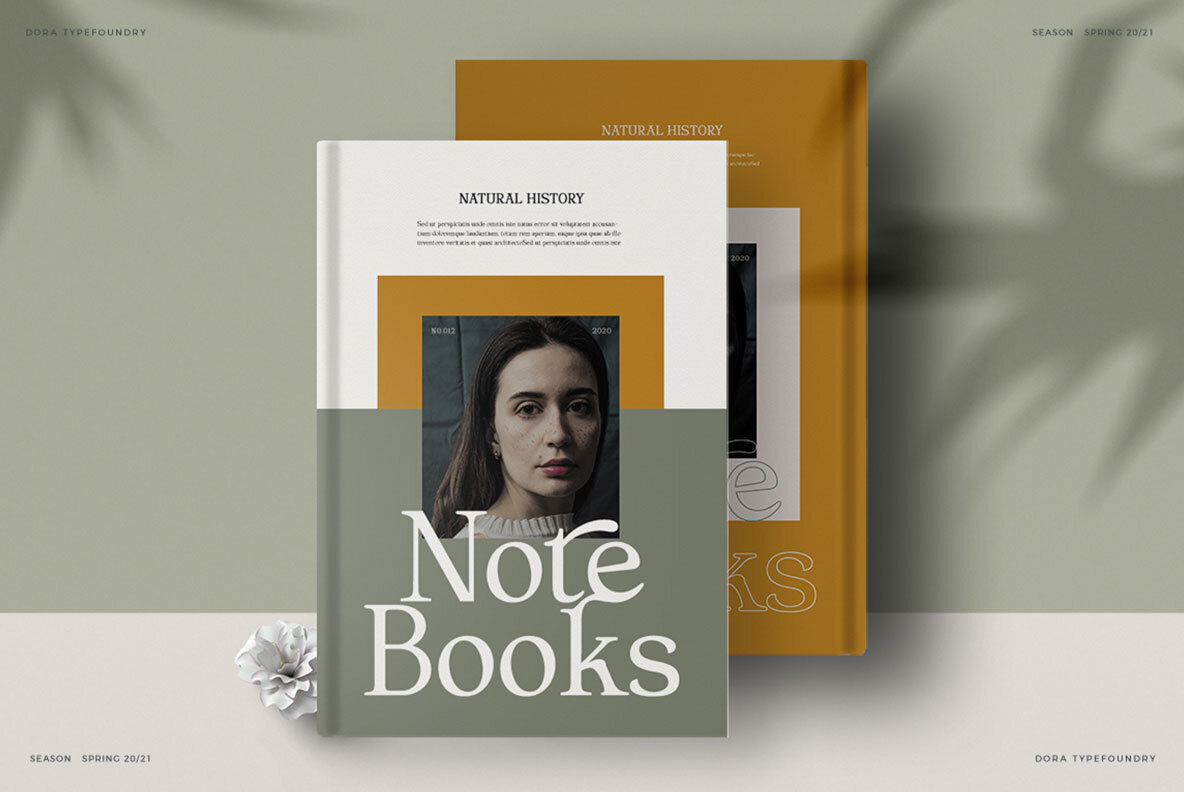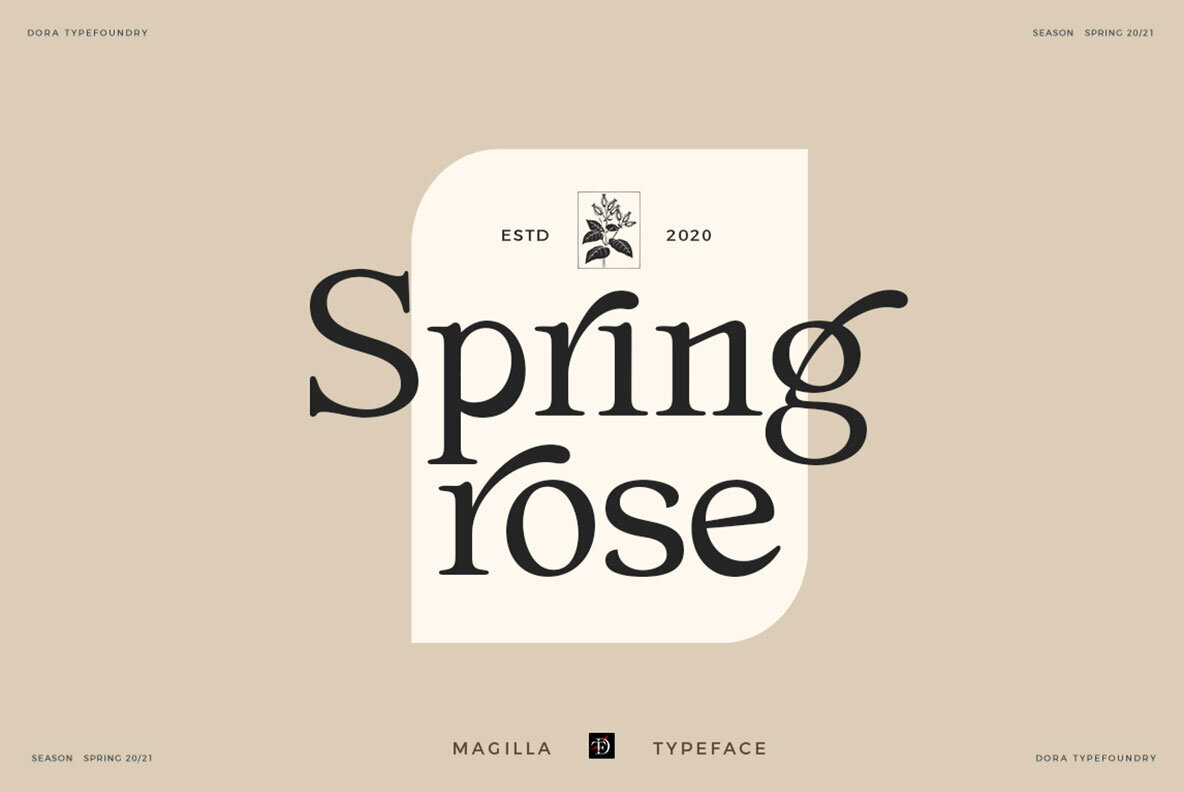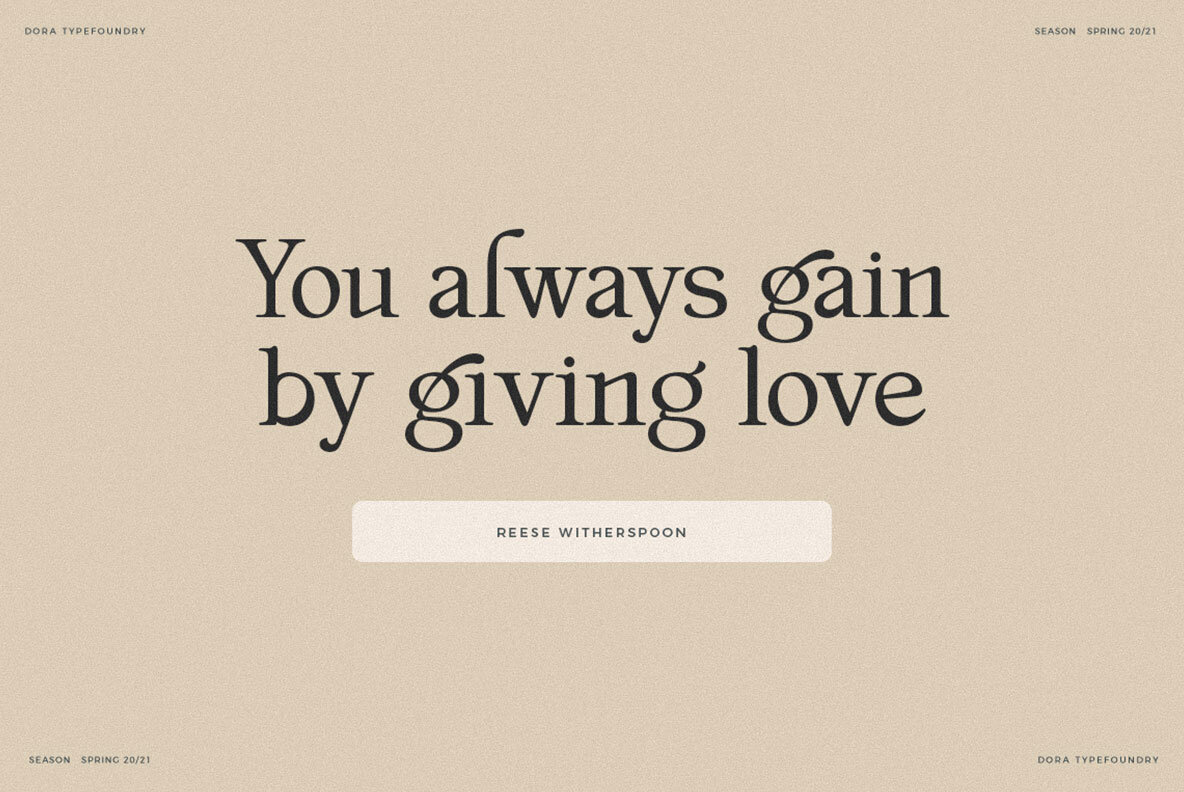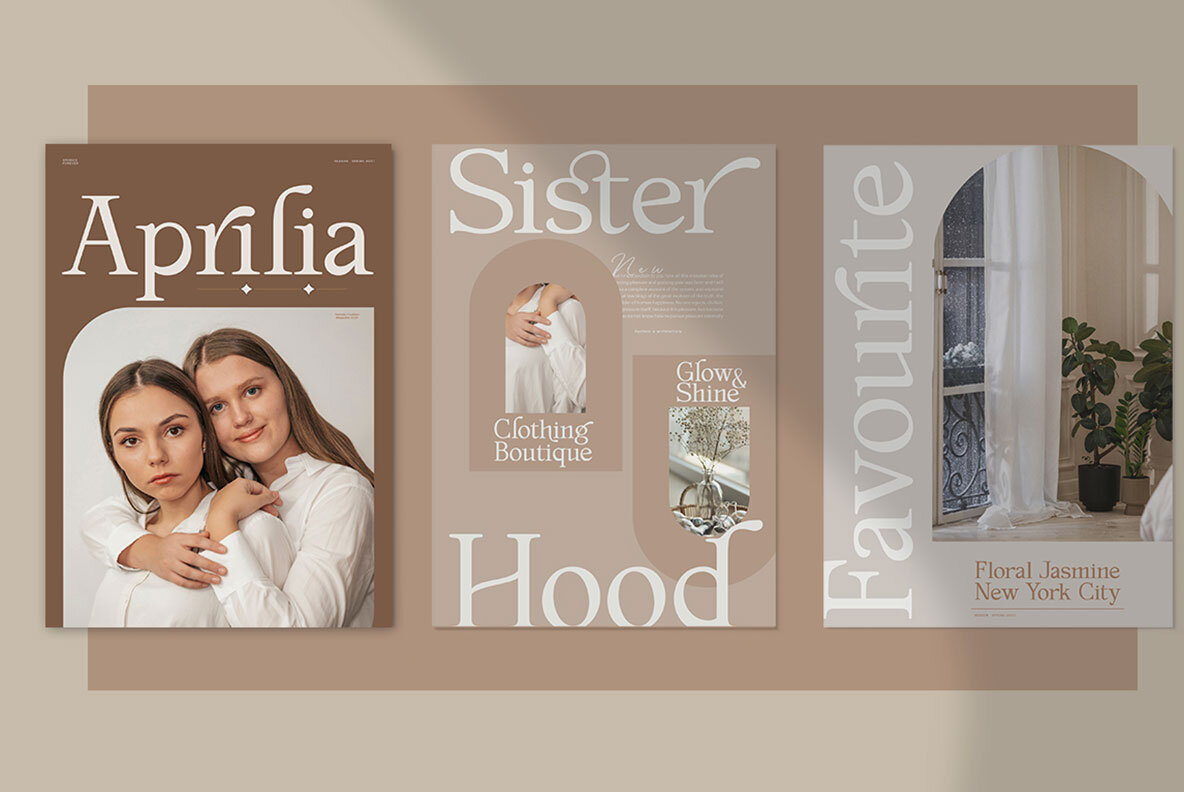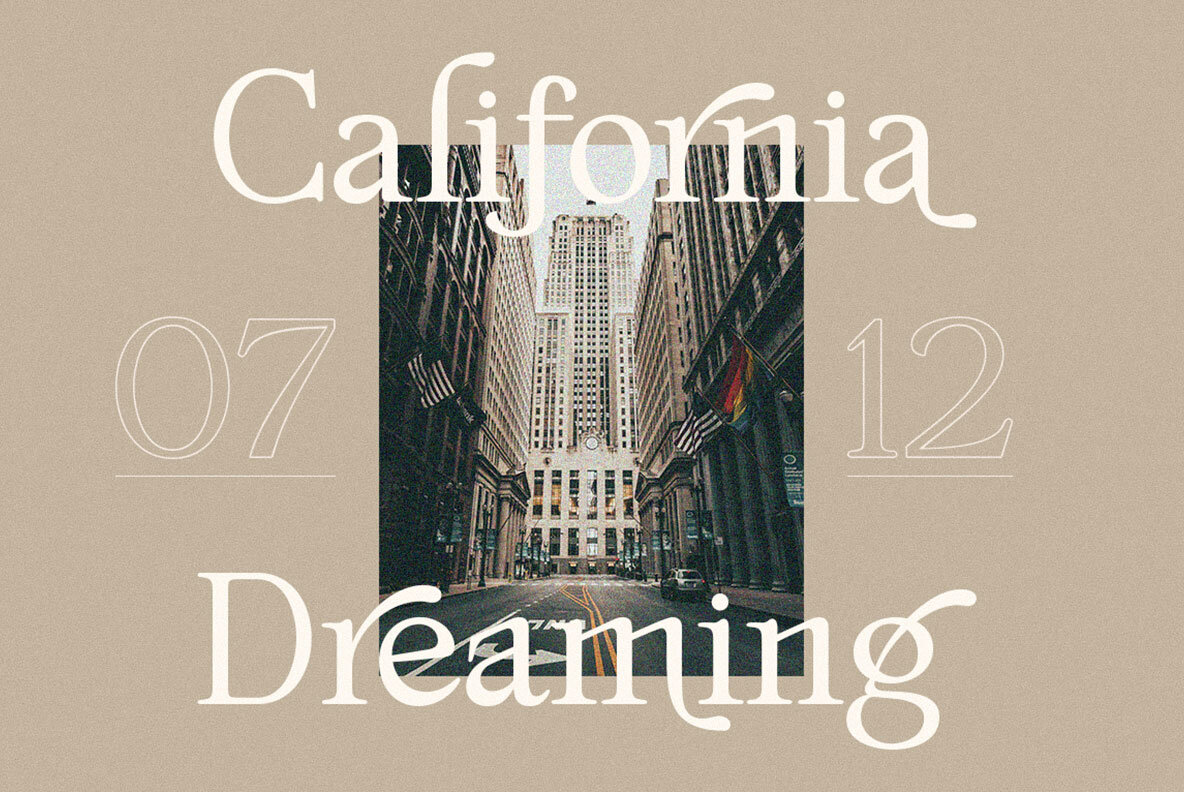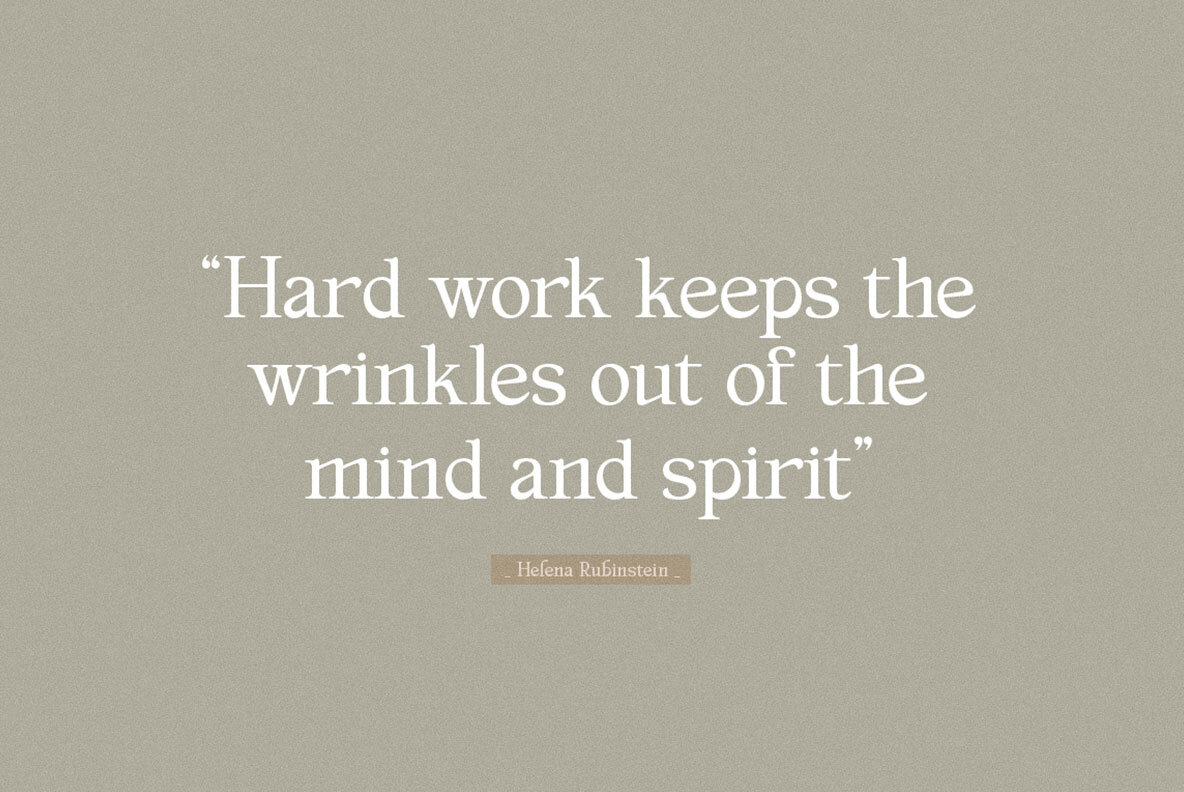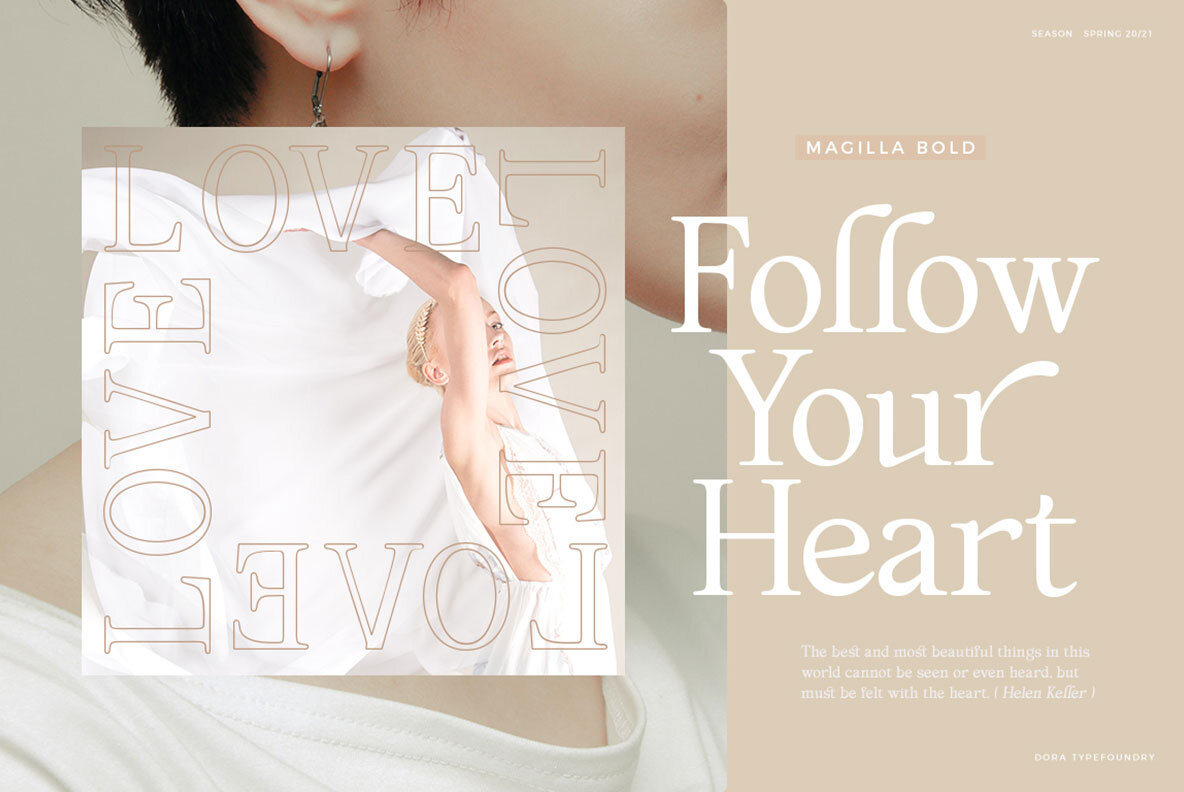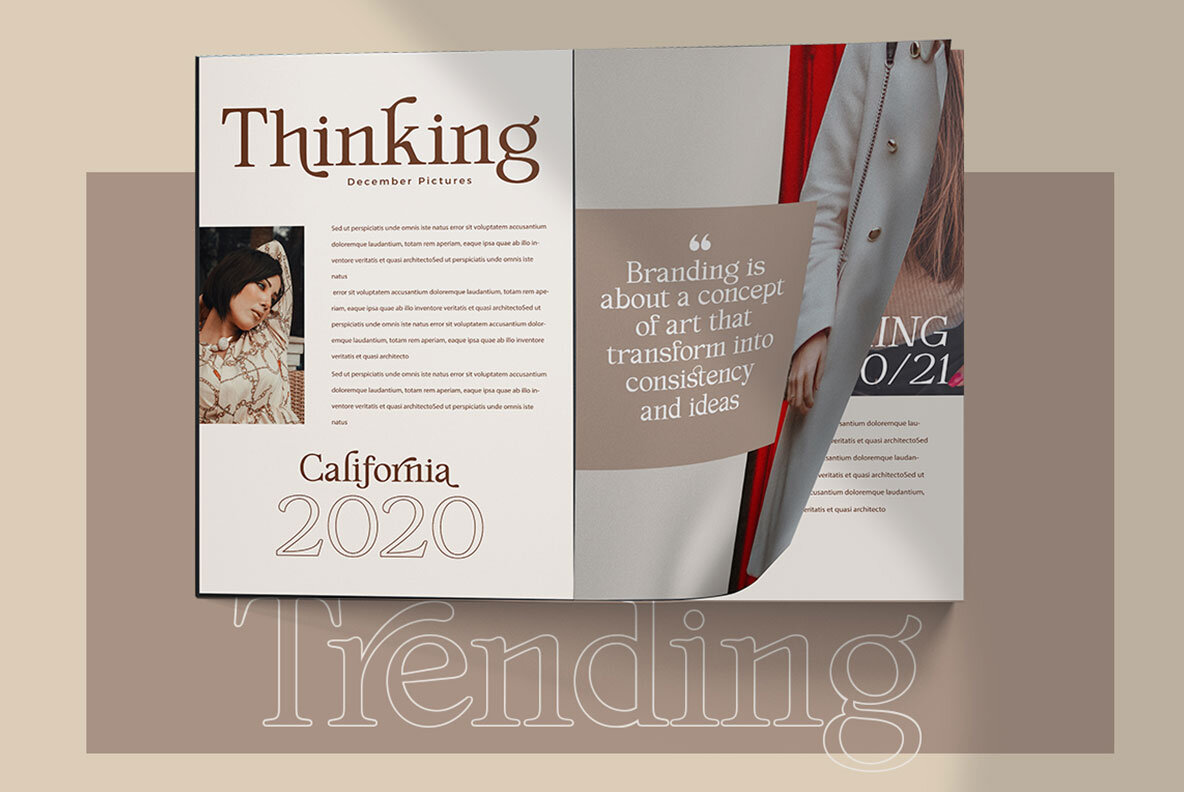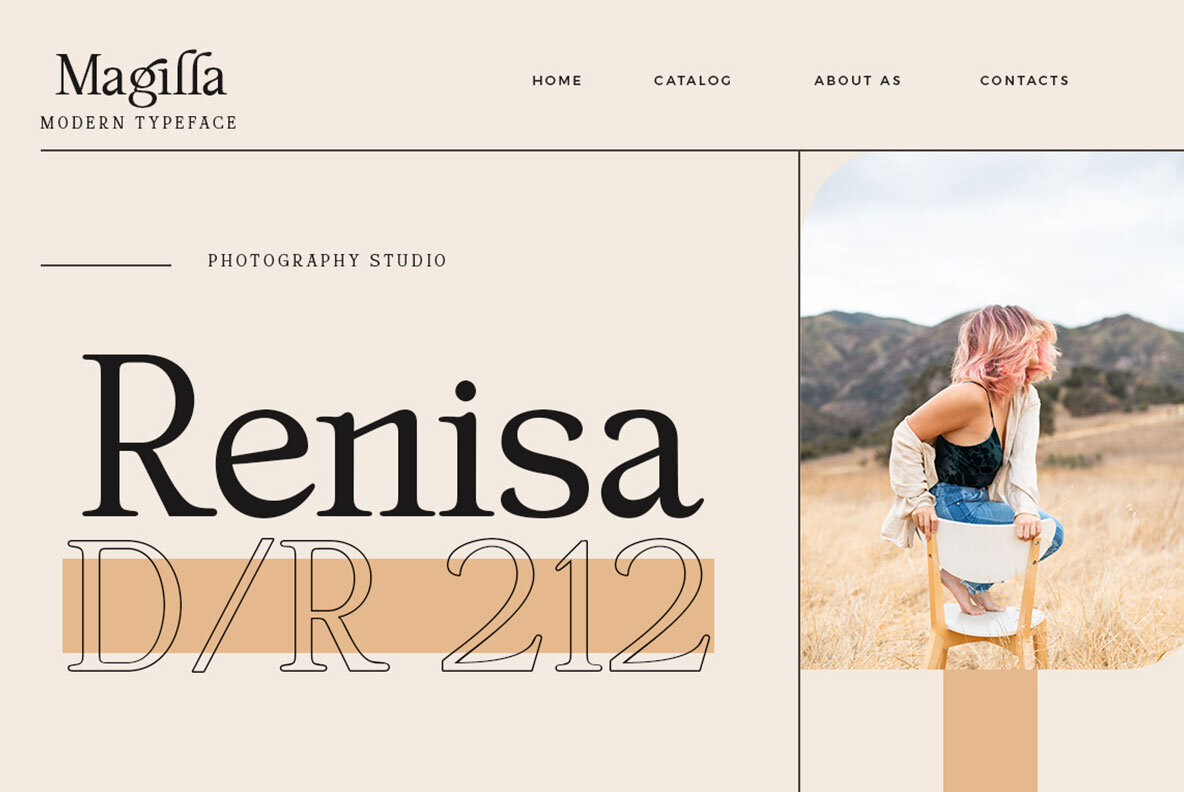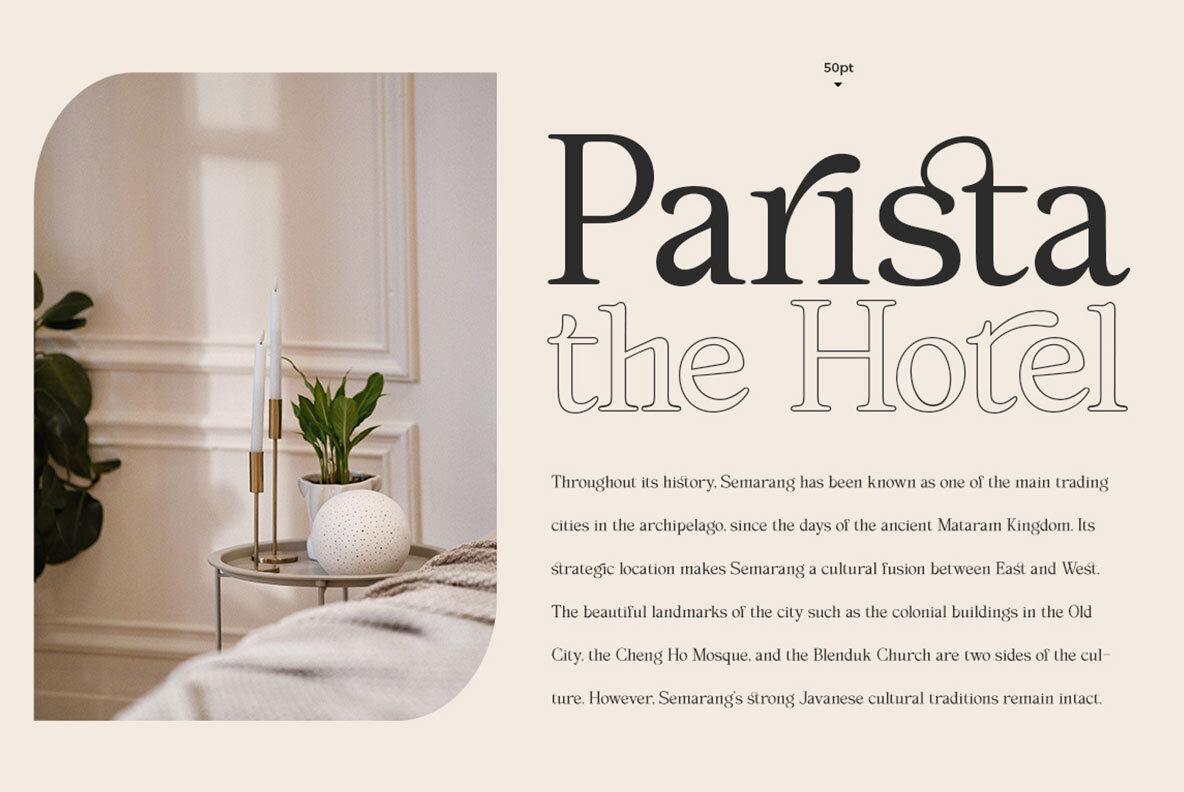
Magilla Font
Magilla is an elegant serif font designed to infuse your projects with luxury and style. Its versatility makes it suitable for both large and small sizes, making it perfect for editorial projects, magazine headers, logo designs, and clothing branding. Magilla skillfully blends masculine and feminine qualities, enhancing product packaging and more. Magilla comes equipped with uppercase, lowercase, numbers, full punctuation, multilingual support, and is PUA-encoded, ensuring an expansive range of design possibilities. To access the OpenType Stylistic alternatives, ensure you use a program supporting OpenType features, such as Adobe Illustrator CS, Adobe InDesign, CorelDraw X6-X7, or Microsoft Word 2010 or later. Created with love, Magilla ensures an enjoyable design experience. We hope you find it as delightful to use as it was to create. Share your creations using DoraTypefoundry and MagillaSerif, and showcase your innovative applications of Magilla. Thank youMagilla: Elegant Serif Font with a Luxurious Touch